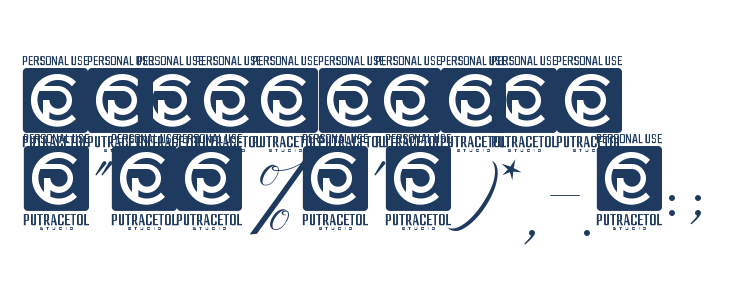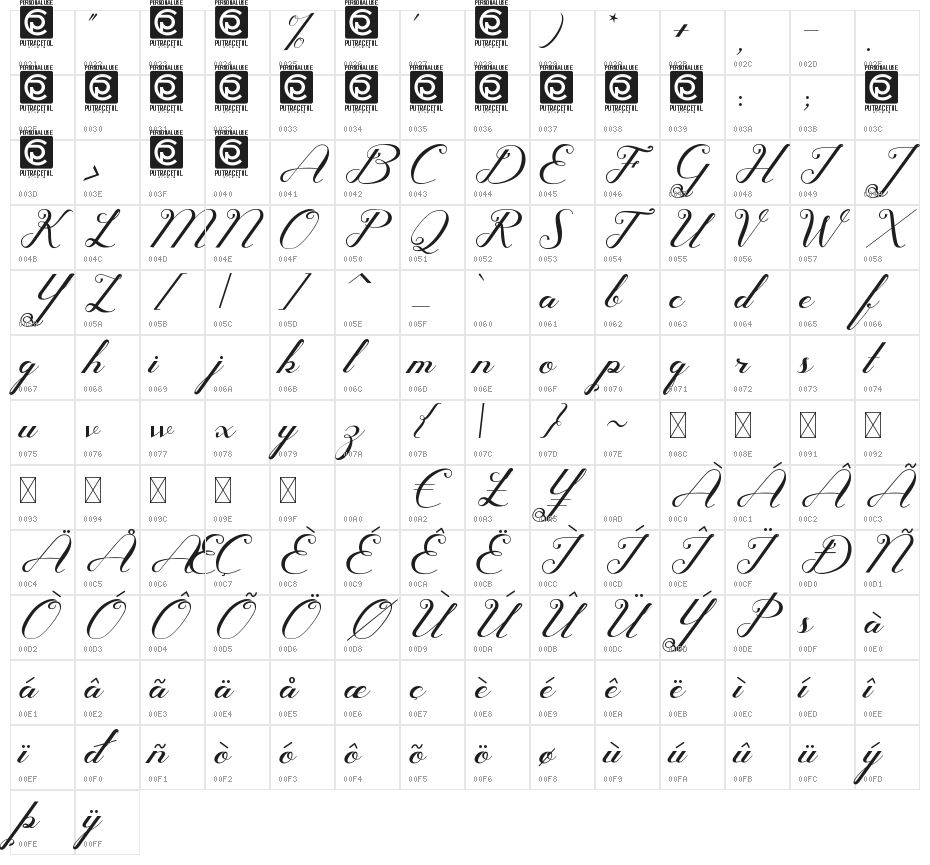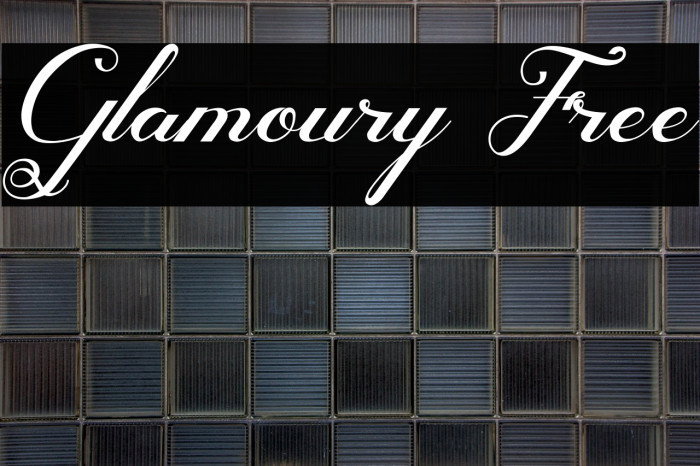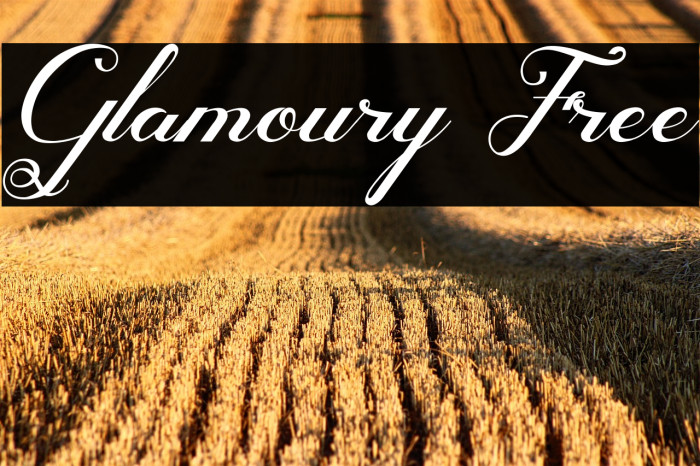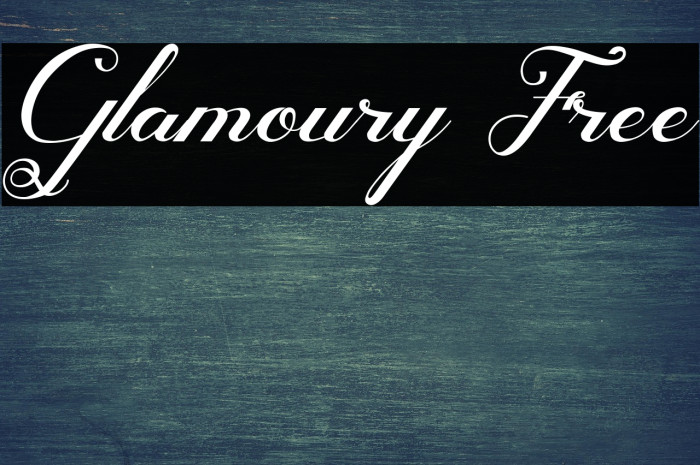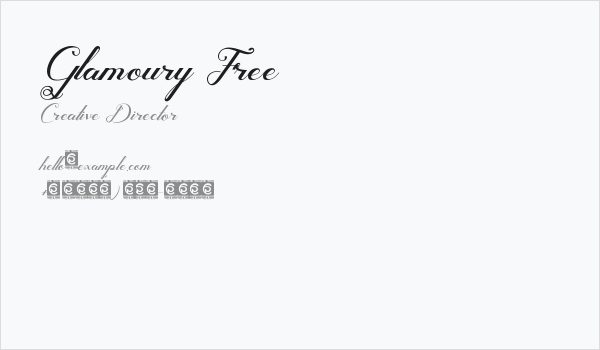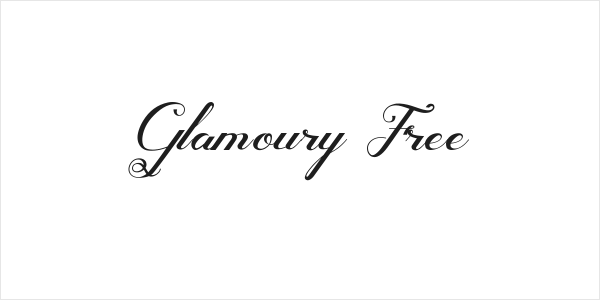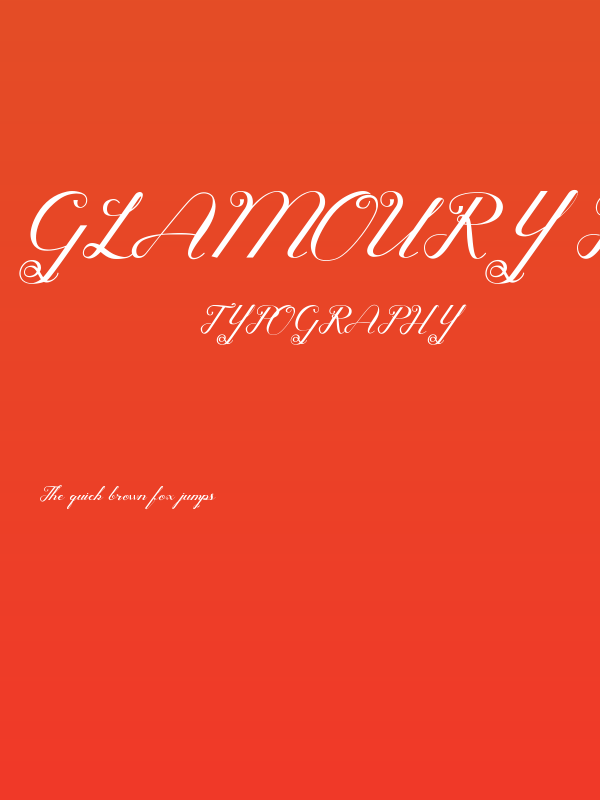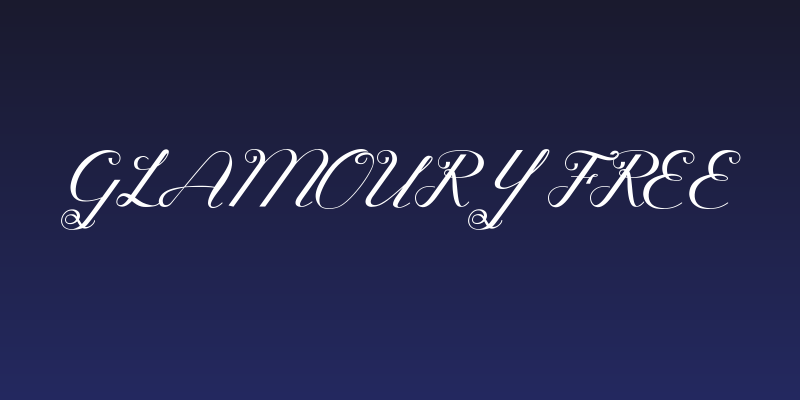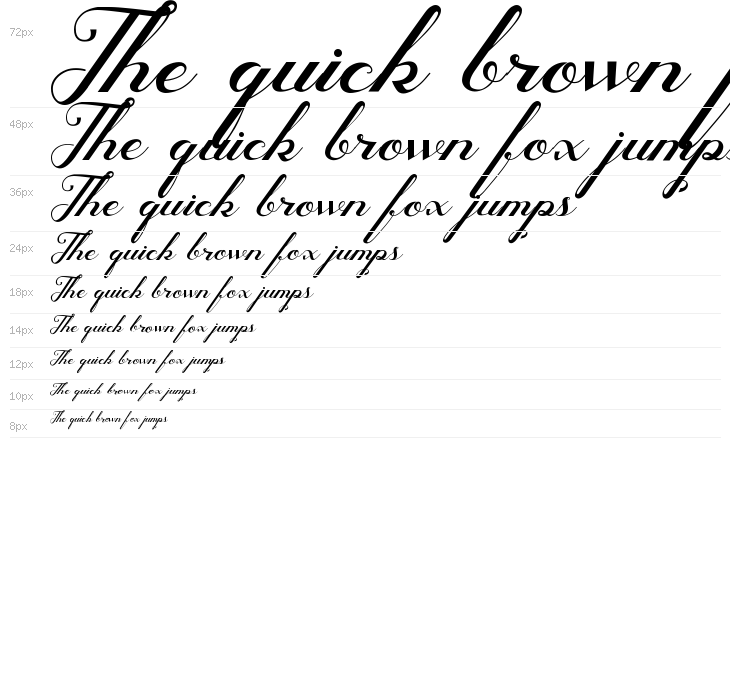
Glamoury Free Font
Glamoury Free Description
This elegant script font features a sophisticated and flowing design, characterized by its graceful curves and loops. The uppercase letters are adorned with delicate swashes, adding a touch of refinement and flair. The lowercase letters maintain a consistent style, with smooth connections and a harmonious flow. The numerals and special characters are crafted with the same attention to detail, ensuring a cohesive appearance across all elements. This font exudes a sense of luxury and elegance, making it ideal for high-end branding and design projects.
Overall StyleElegant
Use CaseLogos, Invitations, Branding
Proposed ProjectsIdeal for wedding invitations, luxury branding, elegant packaging, and high-end editorial design.